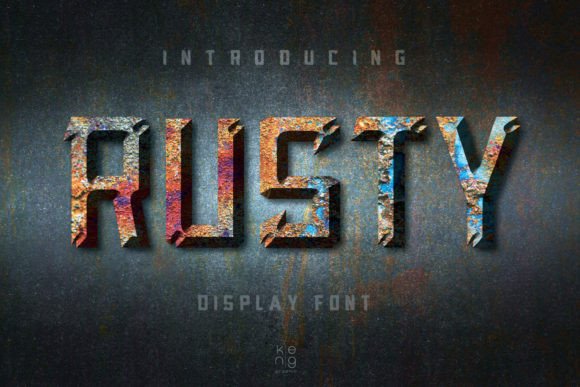
Rusty: A Bold Font for Whimsical Creations
In a world where visual communication is key, the right font can make all the difference. Rusty is a bold and modern display font that brings a whimsical touch to any design. Whether you're working on a logo, a social media post, or a creative project, Rusty offers a unique aesthetic that stands out. Its playful yet professional look makes it ideal for those who want to add a touch of personality to their work without sacrificing clarity.
Why Rusty Matters in Design
Designers and creators are always looking for ways to express their ideas more effectively. Rusty provides a fresh alternative to standard fonts, offering a style that is both eye-catching and versatile. Its bold strokes and slightly irregular edges give it a handcrafted feel, which can be perfect for branding, marketing materials, or personal projects. This font isn't just about looking good—it's about making a statement that resonates with your audience.
For instance, if you're designing a poster for an art exhibit, Rusty can help convey the creative energy of the event. Its distinctive character adds a layer of authenticity that other fonts might not provide. Similarly, in digital marketing, using Rusty in headlines or call-to-action buttons can draw attention and encourage engagement.
Practical Benefits of Using Rusty
One of the most significant advantages of Rusty is its ability to enhance visual storytelling. When used appropriately, it can evoke emotions and create a memorable impression. For example, a small business owner launching a new product line could use Rusty in their promotional materials to communicate a sense of fun and innovation. This can help differentiate their brand from competitors and attract a specific audience.
Rusty also supports creativity by providing a unique foundation for design. It allows designers to experiment with layouts and compositions without being constrained by traditional typography. This flexibility can lead to more dynamic and engaging visuals. Additionally, because it's a display font, Rusty works best in larger sizes, making it ideal for titles, headers, and other prominent text elements.
Who Can Benefit from Rusty?
Rusty is particularly useful for professionals in creative industries such as graphic design, advertising, and content creation. It can also be beneficial for entrepreneurs and small business owners looking to establish a strong visual identity. Educators and bloggers may find it helpful for creating visually appealing presentations or blog posts that capture readers' attention.
Freelancers and hobbyists who work on personal projects can also benefit from using Rusty. Its whimsical nature can inspire new ideas and add a personal touch to their work. However, it's important to note that Rusty may not be suitable for every type of project. In formal or corporate settings, a more traditional font might be more appropriate. That said, when used in the right context, Rusty can add a unique flair that sets your work apart.
Realistic Use Cases for Rusty
Consider a scenario where a local café wants to update its menu board. By incorporating Rusty into the design, the café can create a more inviting and playful atmosphere that reflects its brand personality. The font's boldness ensures that the text is easily readable, while its whimsical style adds charm.
Another example is a children's book publisher looking to create a cover that appeals to young readers. Rusty can be used to highlight the title, making it stand out on a shelf. Its lively appearance can capture the imagination of both children and parents, helping to drive sales and build brand recognition.
Limitations and Considerations
While Rusty has many strengths, it's essential to consider its limitations. Because it's a display font, it's not intended for large blocks of text. Using it in body copy could reduce readability and make the content harder to digest. Therefore, it's best reserved for headings, logos, and other short-form text elements.
Additionally, the effectiveness of Rusty can depend on the design context. If the overall layout is too busy, the font may not have the desired impact. It's important to balance its use with other design elements to ensure that it enhances rather than overwhelms the composition.
Conclusion: Embrace the Whimsy of Rusty
Rusty is more than just a font—it's a tool for expression and creativity. Its bold, modern design allows users to add a unique touch to their work, making it a valuable asset in various design scenarios. Whether you're a designer, marketer, or entrepreneur, Rusty offers a way to communicate your message with personality and flair.
By understanding its strengths and limitations, you can make informed decisions about when and how to use it. Ultimately, the goal is to create designs that resonate with your audience and reflect your creative vision. With Rusty, you have the opportunity to take your work in a new and exciting direction. So why not give it a try and see how it can elevate your next project?